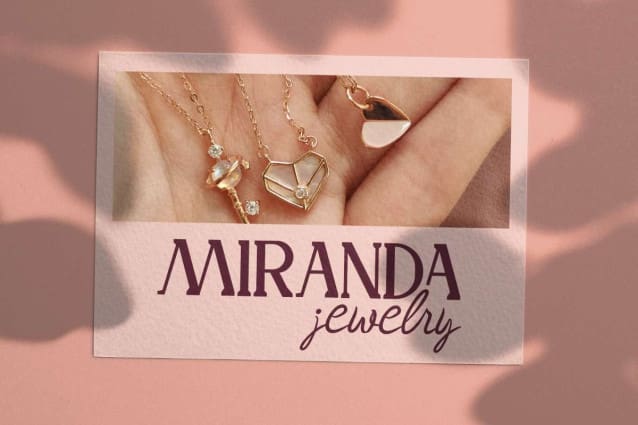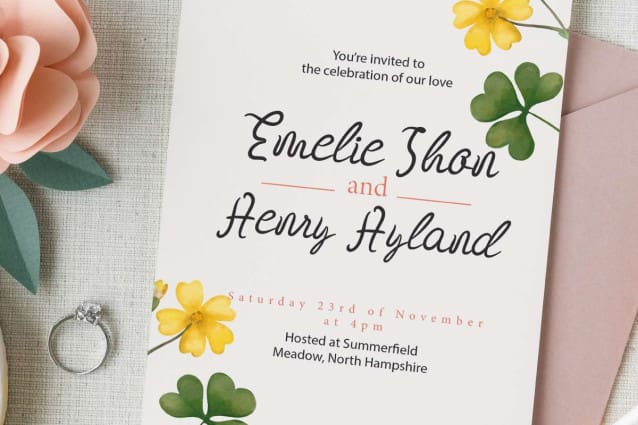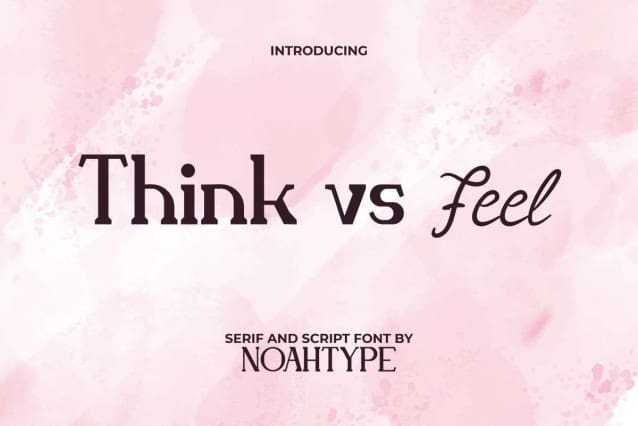
Think vs Feel Font Duo
Think vs Feel Font Duo is a uniqeu font duo with two different styles: Classic TypeWriter and Stylish handwriting. These two fonts will complete each other even though the styles are quite different and still easy to read. It will be great for any industry, such as accessories and jewelry, beauty product, café, event or wedding organizer, fashion, florist, printing, publishing, restaurant, and more!
Both styles of Think vs Feel include a full set of Uppercase and Lowercase Characters, Numbers, Punctuation, Symbol, and Ligatures only for Script. It will be amazing for many projects, such as business card, cover, custom design, invitation, label, poster, product packaging, quote, signage, website, and any project that requires a soft look!